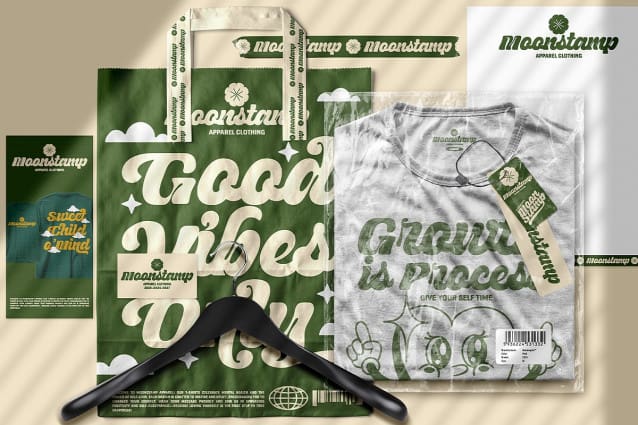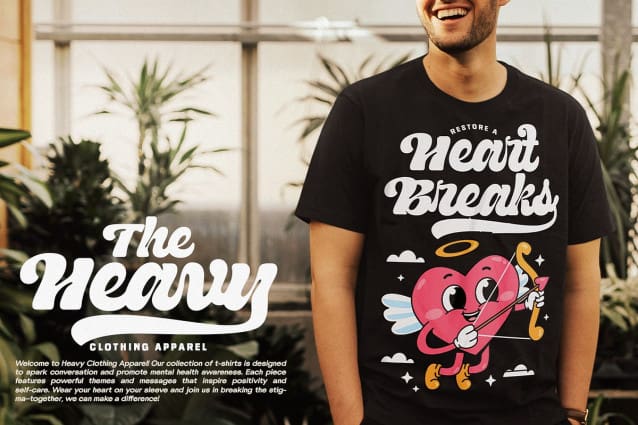
UT Rachoe Font
UT Rachoe Font, captures a dynamic and flowing spirit, bringing an energetic and expressive personality to your designs. Like a rhythmic dance in type, it strikes the perfect balance between charm and sophistication, making it a go-to font for designers looking to convey elegance with a playful twist.
This graceful script font is defined by its sweeping curves and decorative swashes. Its design radiates fluidity and movement, blending a hand-drawn aesthetic with a modern sensibility. The timeless yet contemporary feel makes it a versatile choice for projects that call for warmth, creativity, and personal expression.
UT Rachoe is an excellent fit for designers, creative agencies, and DIY enthusiasts aiming to infuse their work with personality and flair. Its artistic nature makes it ideal for branding, boutique logos, invitations, or any project where an elegant, handcrafted touch is desired.